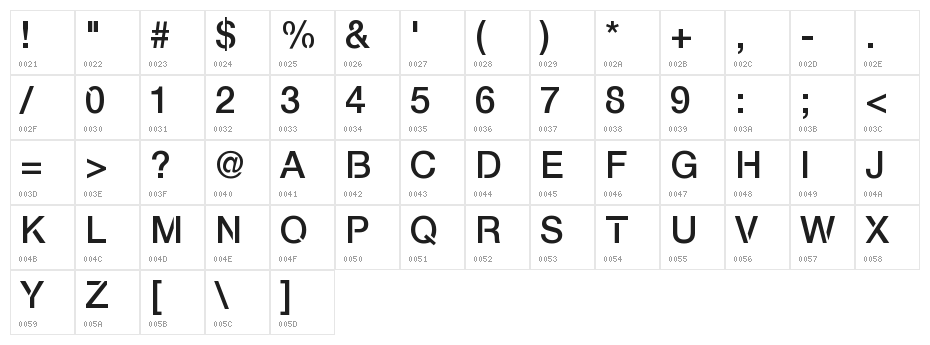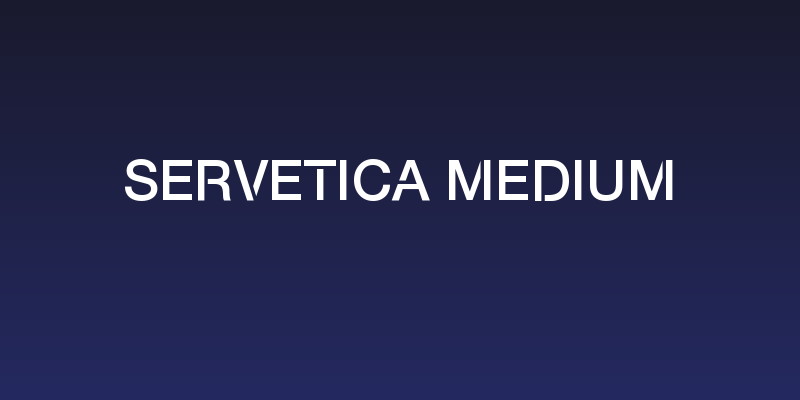
Servetica Medium Font
Servetica Medium Description
This typeface features a clean and modern sans-serif design, characterized by its uniform stroke width and lack of decorative elements. The letters are well-proportioned with a slightly condensed appearance, making it suitable for a variety of applications. The uppercase letters are bold and assertive, while the lowercase letters maintain a consistent style that complements the overall design. Numbers are clear and easy to read, and the special characters are straightforward, enhancing the font's versatility. The simplicity and clarity of this typeface make it ideal for both digital and print media.
| Proposed Projects | Ideal for branding, web design, advertising, and editorial projects where clarity and modernity are key. |